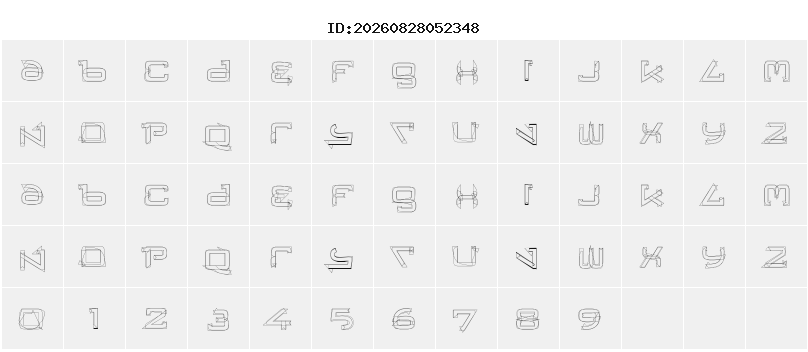
Tresor Eins Preview
• Font Name: Tresor Eins
• Full Font Name: Tresor Eins
About Tresor Eins.ttf
Tresor Eins.ttf is a modern, elegant sans-serif font designed for ultimate readability and visual harmony. Perfect for branding, headlines, web design, and print materials.